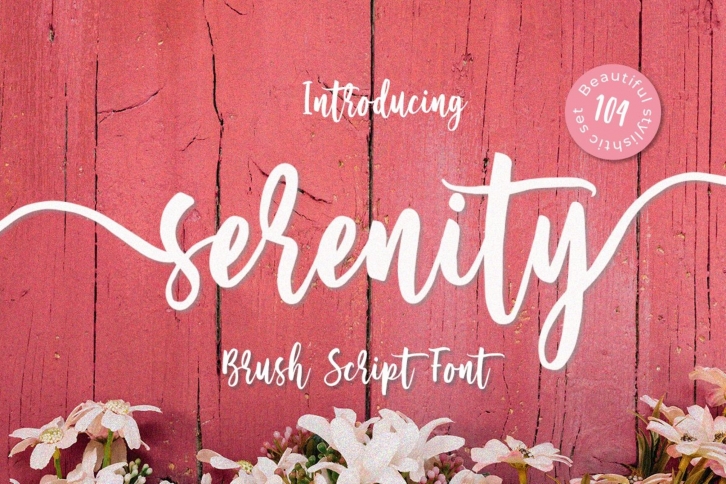
Introducing Serenity Script- handwritten font. Serenity is a beautiful brush font. Made with a natural brush. The texture from the brush font will make your design more beautiful and powerful. This font is suitable for any design like branding, quotes, t-shirt printing and etc.
- Accents (Multilingual characters)
- 104 Beautiful Stylistic
- Numerals and Punctuations (OpenType Standard)